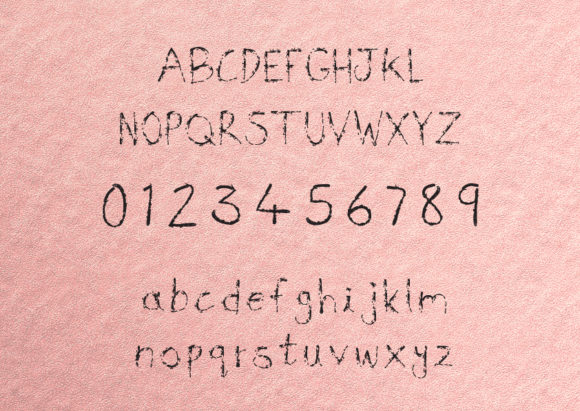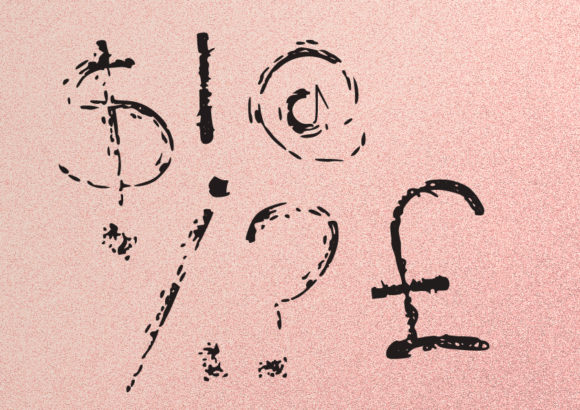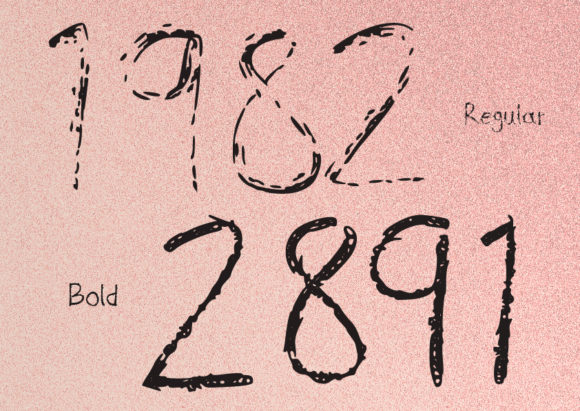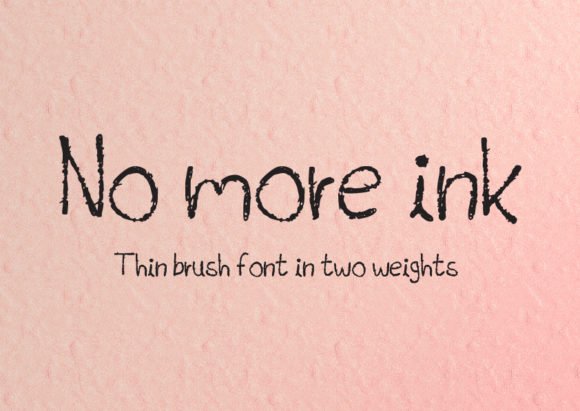
Introduction to No More Ink Font
No More Ink embodies fun, quirkiness and authenticity.
This enchanting display font will turn any creative idea into a true standout Get creative with its childlike playfulness, and use it to brighten up any kids and school project.